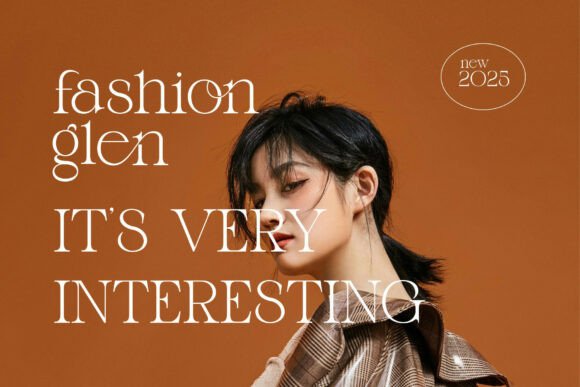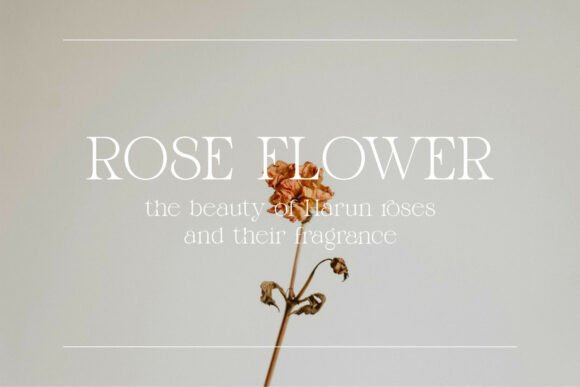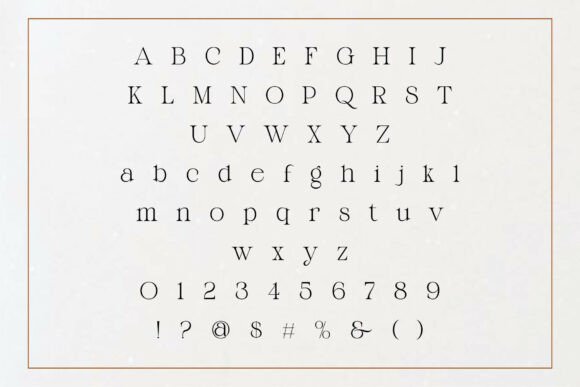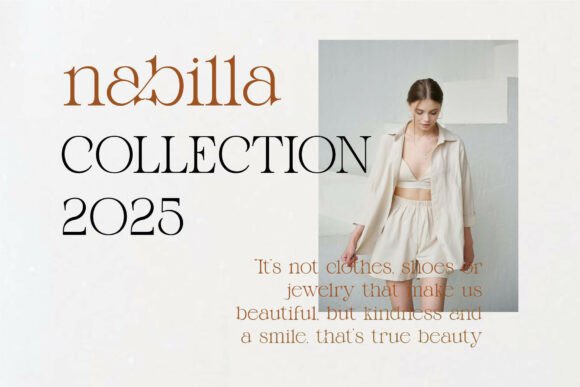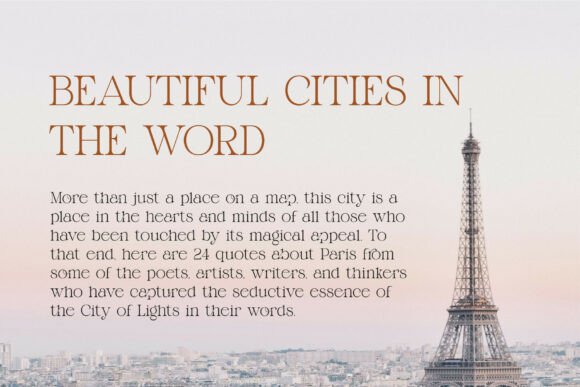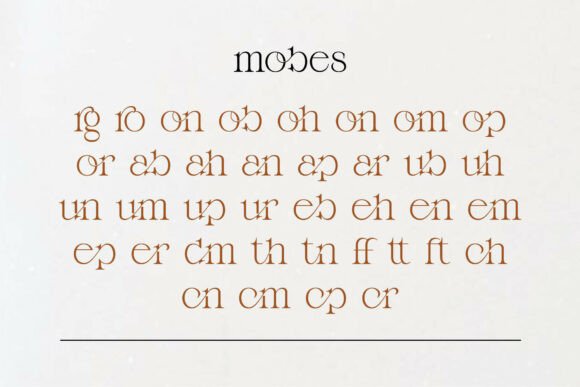
Introduction to Mobes Font
Introducing the new Mobes Serif Family font with various weights.
It is a fashionable, modern, and elegant serif font with some sexy, stylish extras This is perfect for branding and logo design.
Key Features of Mobes Font
Why Choose Mobes Font?